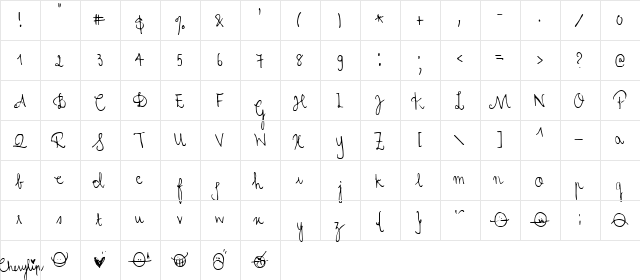
Cher Font Hand
| Style | Hand |
| Foundry | Font Garden |
| Designer | Ellinor Rapp |
Design Context for Cher Font Typeface
Cher Font flows with the natural rhythm of handwritten lettering, making it ideal for designs that call for warmth and personal expression.
Font Pairing: Combine Cher Font with a simple geometric sans for maximum contrast — the tension between flowing curves and clean structure is a classic typographic pairing.